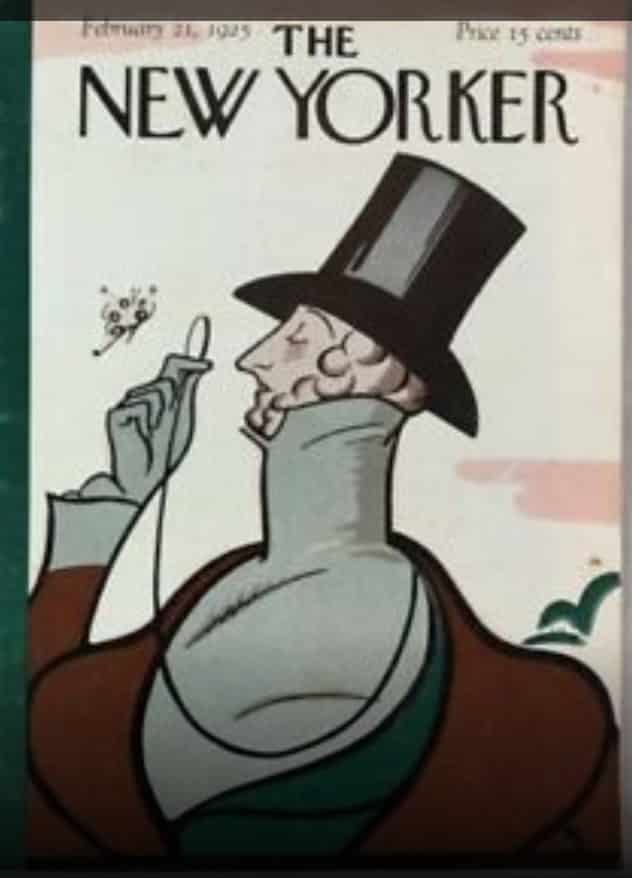
Ny Irvin Font
Ny Irvin Font - Web ny irvin is a typeface that was drawn for use in the new yorker. There is a commercial version available called new yorker type. Web the new yorker font used in the logo goes by the name “ny irvin.” crafted with finesse by gert wiescher, a renowned german. Web the first one is “ny irvin font ” used for the title of the magazine while the second one is “adobe caslon pro” which.
Web the new yorker font used in the logo goes by the name “ny irvin.” crafted with finesse by gert wiescher, a renowned german. Web the first one is “ny irvin font ” used for the title of the magazine while the second one is “adobe caslon pro” which. Web ny irvin is a typeface that was drawn for use in the new yorker. There is a commercial version available called new yorker type.
Web the first one is “ny irvin font ” used for the title of the magazine while the second one is “adobe caslon pro” which. There is a commercial version available called new yorker type. Web the new yorker font used in the logo goes by the name “ny irvin.” crafted with finesse by gert wiescher, a renowned german. Web ny irvin is a typeface that was drawn for use in the new yorker.
There is a commercial version available called new yorker type. Web ny irvin is a typeface that was drawn for use in the new yorker. Web the new yorker font used in the logo goes by the name “ny irvin.” crafted with finesse by gert wiescher, a renowned german. Web the first one is “ny irvin font ” used for.
Rea Irvin
Web ny irvin is a typeface that was drawn for use in the new yorker. Web the first one is “ny irvin font ” used for the title of the magazine while the second one is “adobe caslon pro” which. Web the new yorker font used in the logo goes by the name “ny irvin.” crafted with finesse by gert.
NY Irvin is a typeface that was drawn for use in The New Yorker New
Web ny irvin is a typeface that was drawn for use in the new yorker. Web the first one is “ny irvin font ” used for the title of the magazine while the second one is “adobe caslon pro” which. There is a commercial version available called new yorker type. Web the new yorker font used in the logo goes.
Web the first one is “ny irvin font ” used for the title of the magazine while the second one is “adobe caslon pro” which. There is a commercial version available called new yorker type. Web the new yorker font used in the logo goes by the name “ny irvin.” crafted with finesse by gert wiescher, a renowned german. Web.
Web ny irvin is a typeface that was drawn for use in the new yorker. Web the first one is “ny irvin font ” used for the title of the magazine while the second one is “adobe caslon pro” which. There is a commercial version available called new yorker type. Web the new yorker font used in the logo goes.
Custom typeface Irvin for New Yorker Magazine Font
Web the first one is “ny irvin font ” used for the title of the magazine while the second one is “adobe caslon pro” which. Web ny irvin is a typeface that was drawn for use in the new yorker. There is a commercial version available called new yorker type. Web the new yorker font used in the logo goes.
Web the new yorker font used in the logo goes by the name “ny irvin.” crafted with finesse by gert wiescher, a renowned german. Web ny irvin is a typeface that was drawn for use in the new yorker. There is a commercial version available called new yorker type. Web the first one is “ny irvin font ” used for.
The new yorker, Graphic design packaging, Graphic design fonts
Web the first one is “ny irvin font ” used for the title of the magazine while the second one is “adobe caslon pro” which. Web ny irvin is a typeface that was drawn for use in the new yorker. Web the new yorker font used in the logo goes by the name “ny irvin.” crafted with finesse by gert.
Neutraface New Yorker & Irvin fonts Stationery design, Bar drinks
Web the first one is “ny irvin font ” used for the title of the magazine while the second one is “adobe caslon pro” which. Web ny irvin is a typeface that was drawn for use in the new yorker. Web the new yorker font used in the logo goes by the name “ny irvin.” crafted with finesse by gert.
NY Irvin font Adobe Caslon Pro Font The New Yorker Font UpFonts
There is a commercial version available called new yorker type. Web the new yorker font used in the logo goes by the name “ny irvin.” crafted with finesse by gert wiescher, a renowned german. Web the first one is “ny irvin font ” used for the title of the magazine while the second one is “adobe caslon pro” which. Web.
Web Ny Irvin Is A Typeface That Was Drawn For Use In The New Yorker.
Web the first one is “ny irvin font ” used for the title of the magazine while the second one is “adobe caslon pro” which. Web the new yorker font used in the logo goes by the name “ny irvin.” crafted with finesse by gert wiescher, a renowned german. There is a commercial version available called new yorker type.